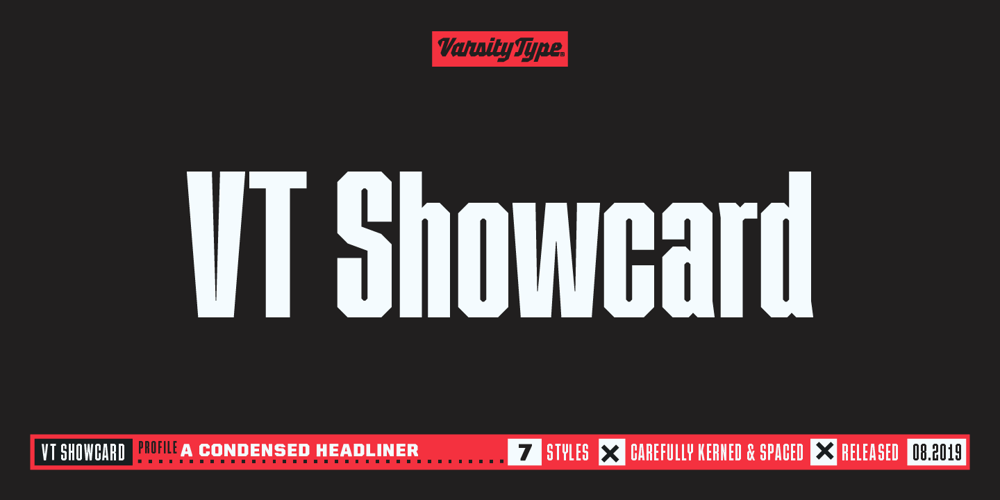
VT Showcard
VT Showcard font
VT Showcard Font Family was designed by CJ Zilligen and published by VarsityType. VT Showcard contains 7 styles and family package options. This condensed block is a true knockout.VT Showcard is a heavy-hitting headliner with presence. Inspired by the boxing showcards of the 60’s and 70’s, VT Showcard towers over body copy and demands attention. This tall and mighty athletic display typeface features chiseled corners and subtle embellishments that reinforce a steady rhythm across its dramatic letterforms. With 7 weights, VT Showcard provides a versatility for sports headlines and similar projects.